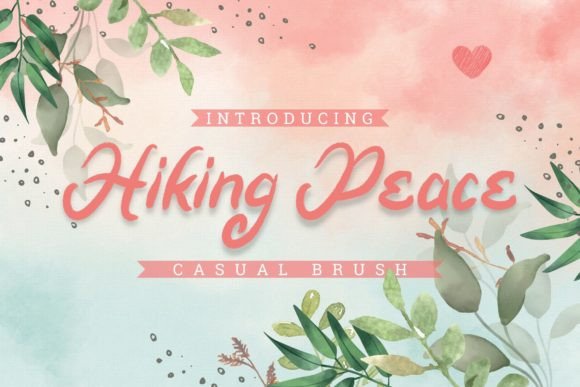
Embark on an artistic odyssey with Hiking Peace, a captivating brush font that intertwines the beauty of nature with the allure of modern aesthetics. Indulge in the symphony of bold strokes and elegant curves, effortlessly creating designs that resonate with your audience. Let Hiking Peace elevate your visual creations to extraordinary heights, leaving an indelible mark on the hearts of those who behold them.
Journey through a myriad of possibilities with this versatile font, crafting logos that demand attention, branding materials that exude sophistication, and designs that evoke a symphony of emotions. The PUA encoding unlocks a treasure trove of delightful glyphs and swashes, empowering you to unleash your creativity and orchestrate a visual masterpiece.
With Hiking Peace as your creative companion, transcend the boundaries of the ordinary and embrace the extraordinary. Ignite the passions of gamers with captivating video game designs, captivating their imaginations and leaving them yearning for more. Transform your social media presence into a visually stunning haven, attracting an audience eager to engage with your content. Let Hiking Peace be the catalyst for your creative transformation, propelling you to the forefront of design excellence.